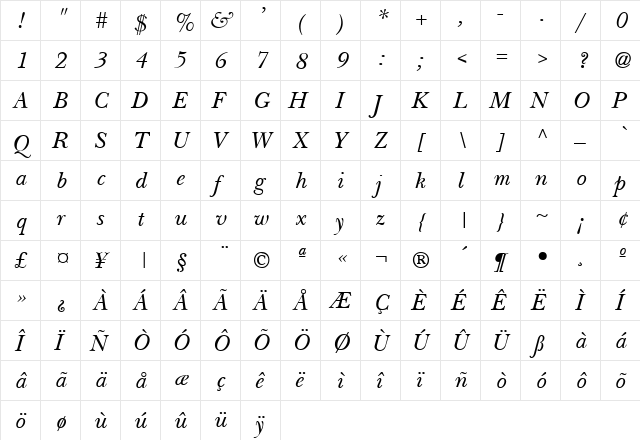
NewBaskerville2 Italic
Design Context for NewBaskerville2 Typeface
NewBaskerville2 is a composed and adaptable typeface that performs quietly and consistently across a wide range of design contexts. Its italic angle brings a sense of urgency and motion to the letterforms.
Pro Tip: Use NewBaskerville2 for emphasis, pull quotes, and subheadings where its slanted energy can add rhythm to the layout.